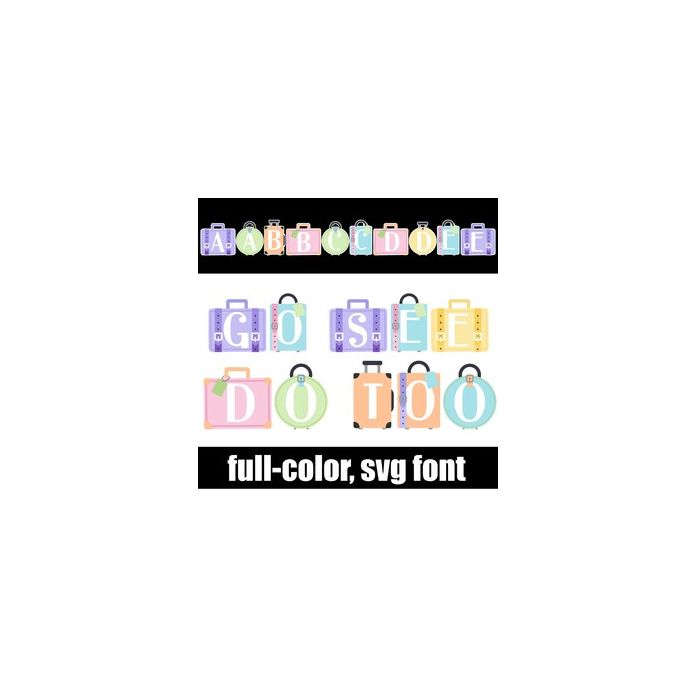
This full-color font features a variety of pastel luggage with letters. There is a secondary color of each letter you can access through your system's or Silhouette's glyph map.